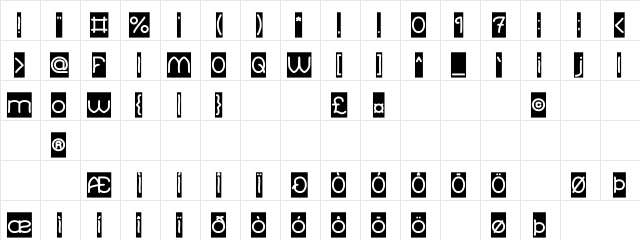
Soup Recipe-Inverse Regular
Design Context for Soup Recipe-Inverse Typeface
Soup Recipe-Inverse takes a measured approach to typography — its balanced proportions and neutral character make it a reliable workhorse for both digital and print work.